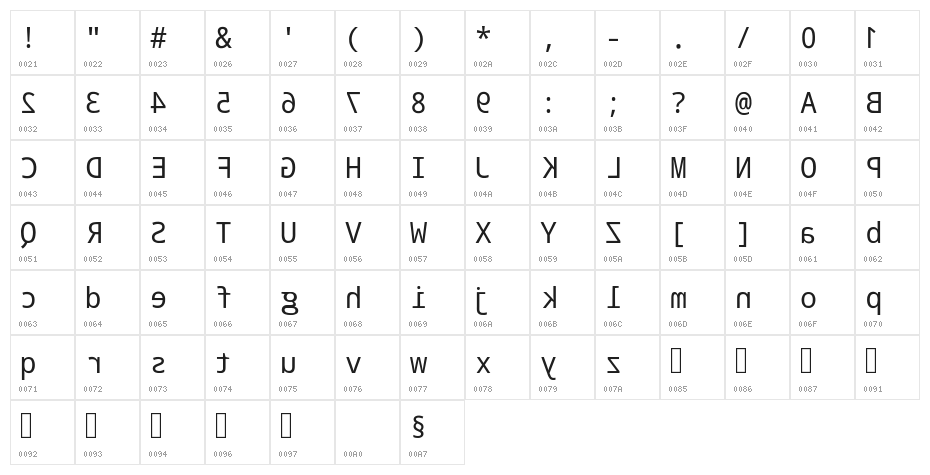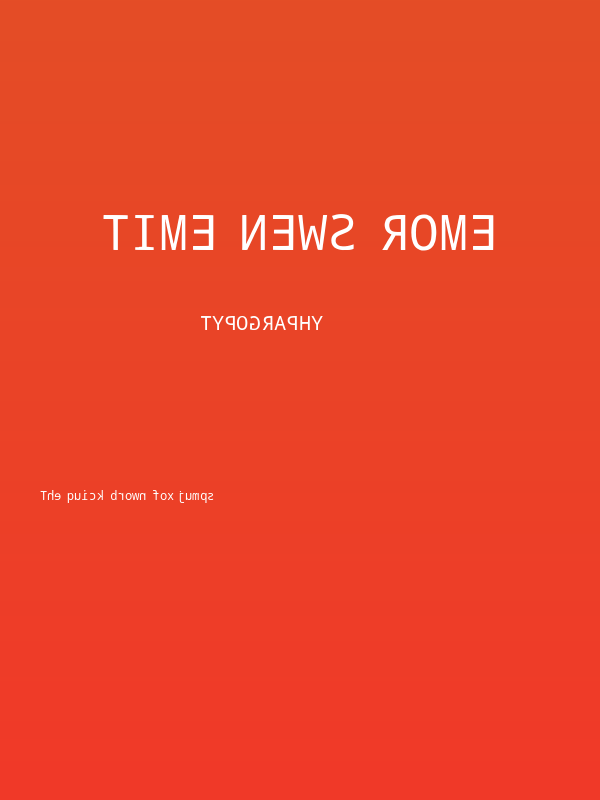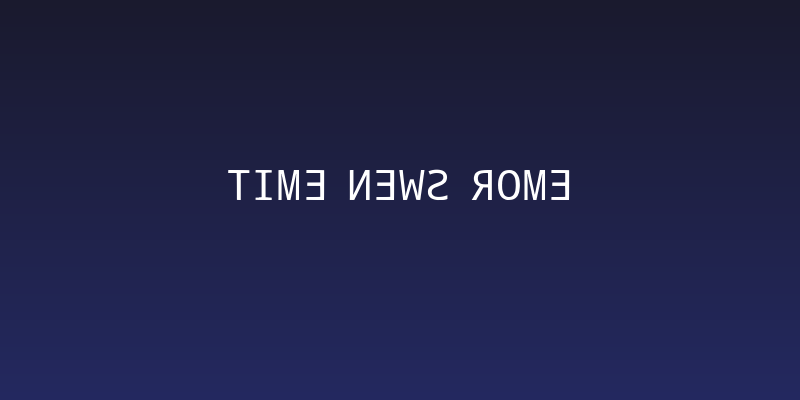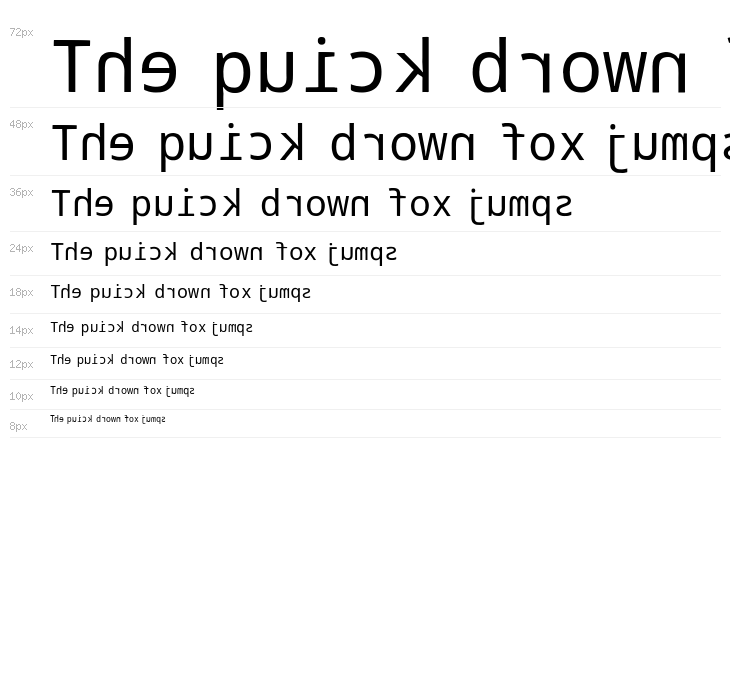
Time News Rome Font
| Caso de uso | Headlines, Body text, Logos |
| Proyectos propuestos | Ideal for digital interfaces, corporate branding, editorial design, and signage due to its clarity and modern aesthetic. |
Time News Rome